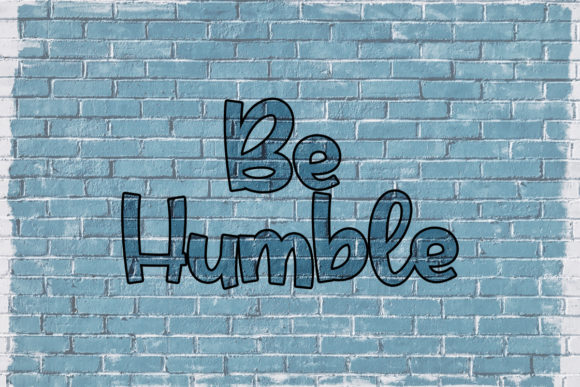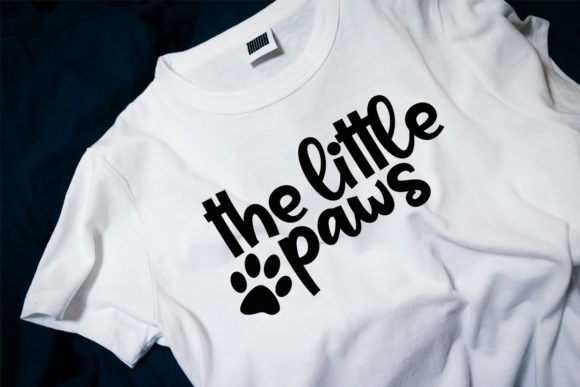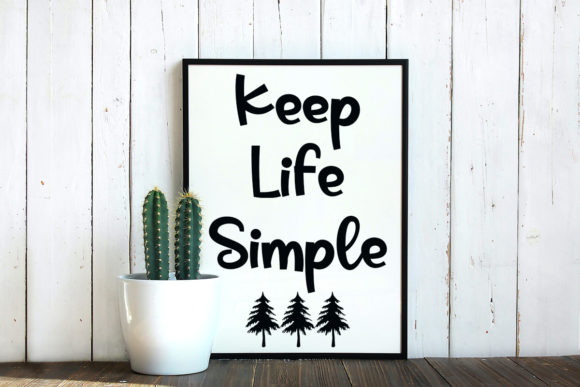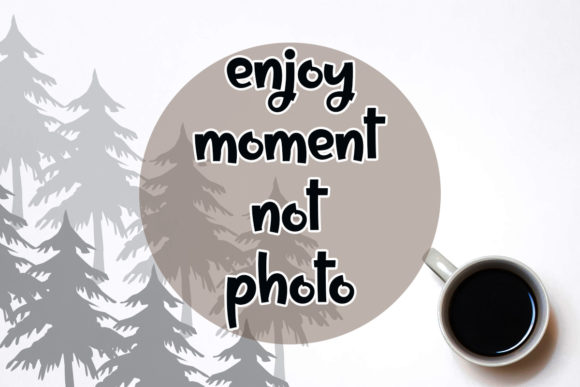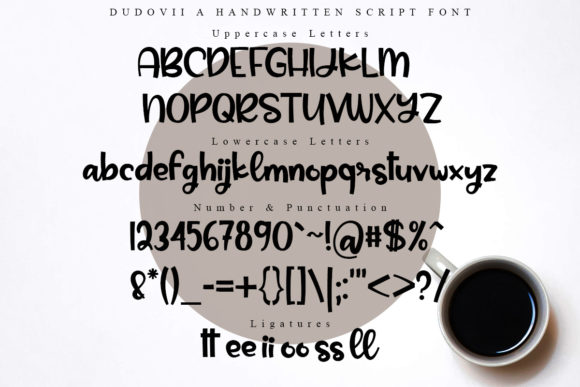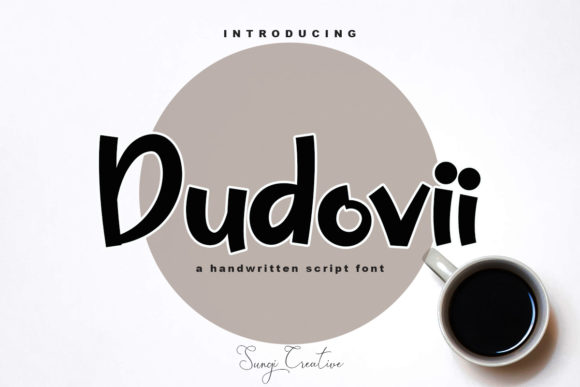
Dudovii Font: Unleash Your Creativity with a Standout Display Font
In the world of typography, fonts play a crucial role in bringing creative ideas to life. For designers, crafters, and anyone looking to add a touch of personality to their projects, the Dudovii font is a game-changer. This dazzling display font embodies fun, uniqueness, and authenticity, making it the perfect choice for turning any creative idea into a standout masterpiece.
The Essence of Dudovii Font
Dudovii font is more than just a collection of letters; it’s an experience. Its design is centered around the principles of fun, uniqueness, and authenticity. This font is not just about conveying a message; it’s about making a statement. Whether you’re working on a branding project, crafting a unique invitation, or designing a standout poster, Dudovii brings a spark of creativity that sets your work apart from the rest.
Key Features of Dudovii Font
- Unique Design: Dudovii boasts a one-of-a-kind design that captures attention and keeps it. Its distinctive style ensures that your project stands out in a crowded creative landscape.
- Versatility: Despite its bold and playful nature, Dudovii is surprisingly versatile. It can be used for a wide range of projects, from digital content to print materials, and everything in between.
- Easy to Read: While it’s a display font, Dudovii doesn’t compromise on readability. Its clear and flowing design makes it easy for readers to engage with the content.
- Customizable: For those who like to add their personal touch, Dudovii offers plenty of room for customization. Experiment with different colors, sizes, and styles to match your project’s tone and theme.
Who Can Benefit from Dudovii Font?
Dudovii font is a treasure trove for a wide range of creative professionals and hobbyists. Here are a few groups who can particularly benefit from this amazing font:
- Graphic Designers: For graphic designers looking to add a touch of uniqueness to their projects, Dudovii is a perfect choice. It’s ideal for branding, advertising, and promotional materials.
- Crafters and DIY Enthusiasts: If you’re into crafting or DIY projects, Dudovii can add a professional and creative edge to your handmade cards, invitations, and decorations.
- Digital Content Creators: Bloggers, YouTubers, and social media influencers can use Dudovii to create eye-catching thumbnails, headers, and promotional materials that grab attention.
- Marketing and Advertising Agencies: For marketing and advertising professionals, Dudovii offers a fresh and engaging way to communicate messages and create memorable brand experiences.
Tips for Using Dudovii Font Effectively
To make the most of Dudovii font, here are a few tips:
- Pair it with Complementary Fonts: While Dudovii is stunning on its own, pairing it with complementary fonts can enhance its beauty. Choose fonts that contrast well with Dudovii to create visual interest.
- Experiment with Colors: Don’t be afraid to experiment with different colors. Dudovii looks great in bold and bright colors, but it can also shine in more subtle tones.
- Consider the Context: Always consider the context in which your project will be viewed. Ensure that Dudovii fits well with the tone and theme of your project.
Dudovii font is a powerful tool for anyone looking to add a touch of fun, uniqueness, and authenticity to their creative projects. Its dazzling display and versatile nature make it a standout choice for designers, crafters, and content creators alike. Whether you’re looking to make a bold statement or simply add some flair to your work, Dudovii is sure to deliver. So why wait? Dive into the world of Dudovii and turn your creative ideas into standouts!